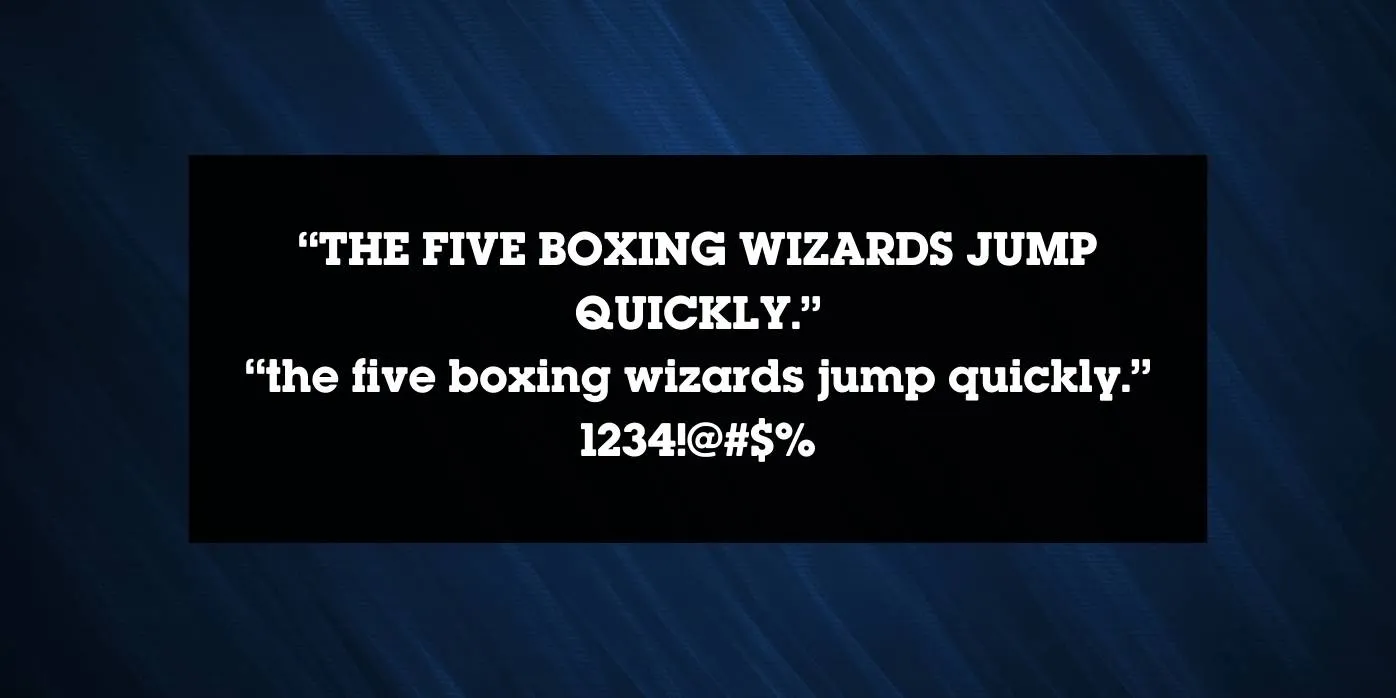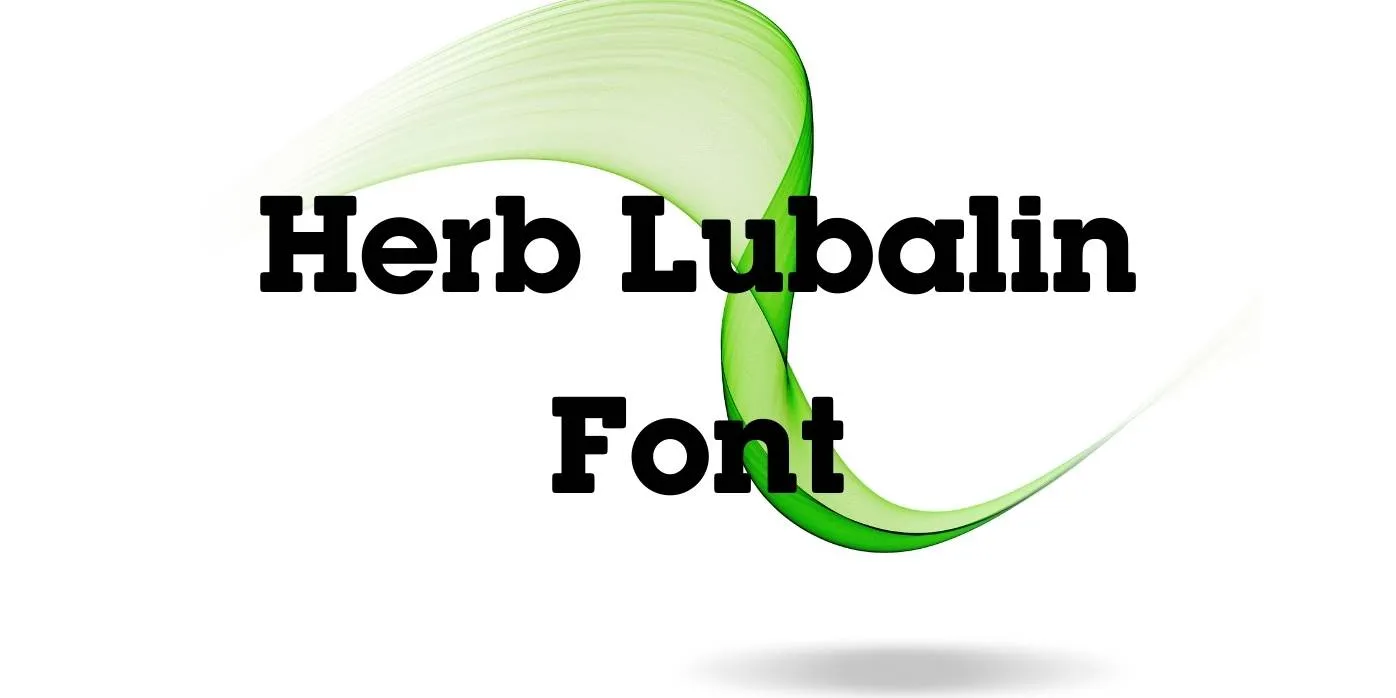
Herb Lubalin Font
Herb Lubalin Font was an American graphic designer known for his innovative and often controversial work in advertising and magazine design during the 1960s and 1970s. In addition to his commercial work, Lubalin also designed several notable typefaces, including ITC Avant Garde, ITC Korinna, and ITC Zemke Hand. This font glyph has been designed by Lubalin in 1974. The uppercase letters are based on geometric shapes, while the lowercase letters are more organic in form.
This makes for a very striking and unique alphabet. Lubalin’s work is characterized by its use of strong typographic elements and clever wordplay. He was often able to take complex concepts and communicate them in a simple and direct way. This made him one of the most successful and influential designers of his generation.